As opposed to a clean and crisp font and look that results from a normal TeX .pdf export, I wish to get the following overall look and feel in my documents, mimicking Cambridge John Wilson and Son print or similar. I am explicitly looking for same font and global layout of the document. (Big title in caps and smallcaps for the chapter name underneath "CHAPTER N.xx".
I understand that the imperfections on the font may come as a result of actual mechanical printer ink spreading into the paper or similar phenomenona. I've tried asking here before and reducing the overall size of the .pdf document in hopes of achieving this via compression, to no avail.
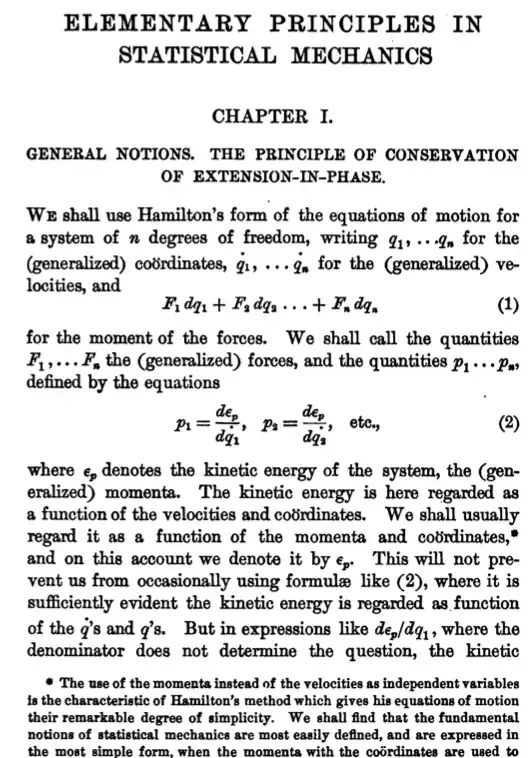
• Personally I wouldn't go there. But if I wanted to, I would probably convert the PDF to bitmaps and then use some GIMP script to introduce some fuzz, random noise and shades. – Michael Palmer Oct 29 '17 at 00:30
• It is not related to the first due to the fact that I do not explicitly want the random imperfections, nor to the second, in which a typewriter font has almost no relation to what I'm asking. I want the font itself and the overall effect, will edit the question accordingly. – Vyraj Oct 29 '17 at 00:52
• I’d suggest Old Standard, but I’m not a mathematician and don’t know how much math that typeface supports. – Thérèse Oct 29 '17 at 01:34
• @Vyraj I not suggested the above link because the typewriter font, but for the methods to obtain font imperfections (blur, microtype effects...) in any font. For choose a similar font, indeed the first place to go is the TeX Font Catalogue. – Fran Oct 29 '17 at 03:04
• You seem to be asking two unrelated uestions. (1) What is the font? (2) How do I do the layout? Foir the first follow Fran's comment. For the second show us an MWE of what you have tried to reproduce the layout, never mind the font you use. – Peter Wilson Oct 29 '17 at 19:16
It's really late but I think this will give you a pretty close output in terms of the old appearance. You would have to add the header/footer or other customization yourself.
How to generate old antique style books in LaTeX